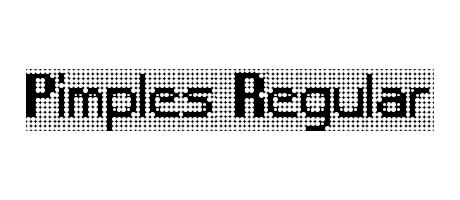
Pimples
By Rikyozone
Pimples Regular: A quirky, slightly distressed typeface. Its bold, sans-serif letters possess a gritty, almost pixelated quality, suggesting a handmade or digital-print aesthetic. The letters are evenly spaced, maintaining a clean, readable quality despite the textural irregularities. The overall impression is both modern and slightly rebellious.